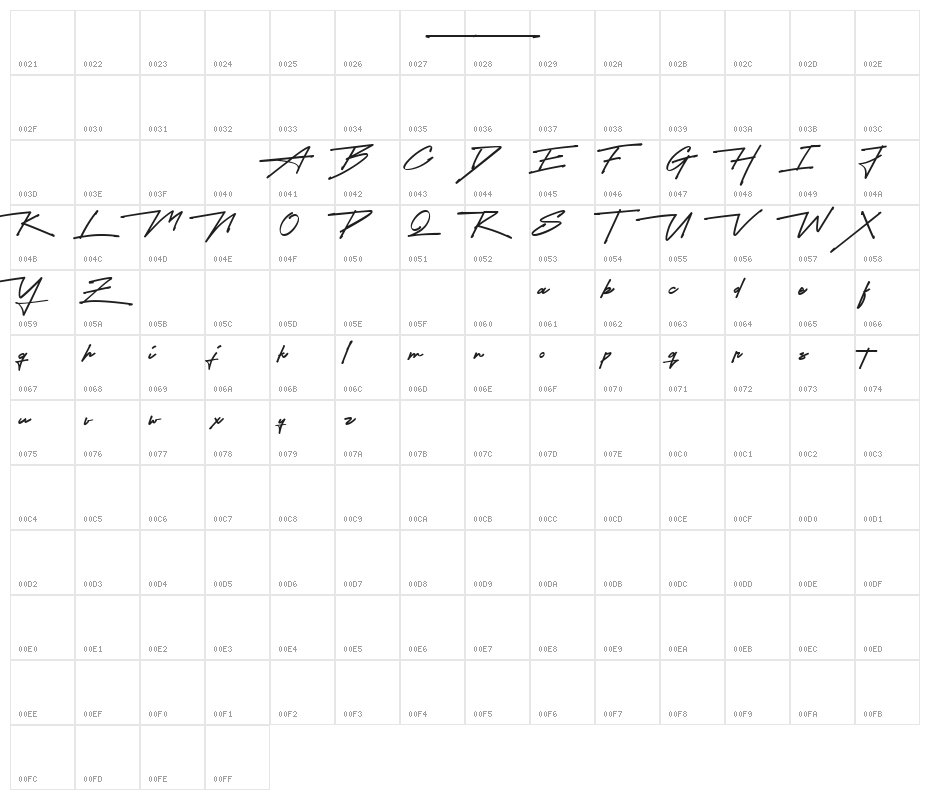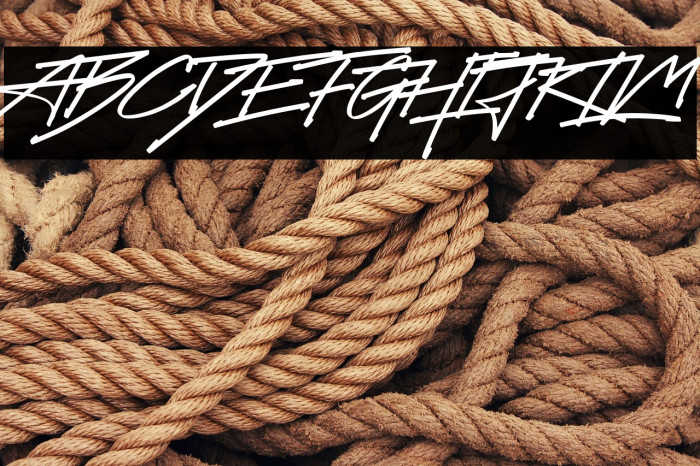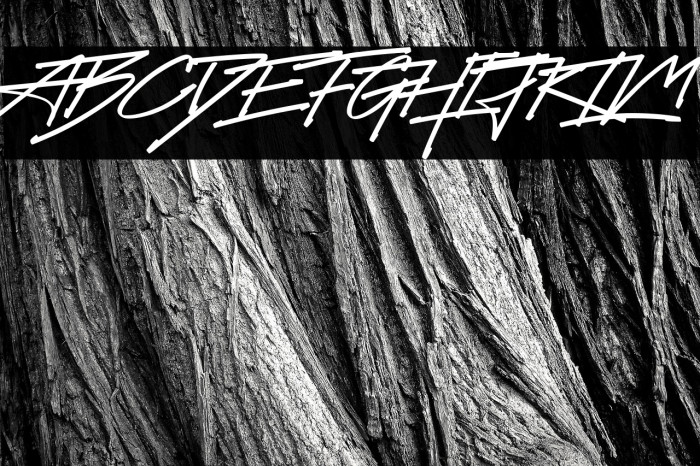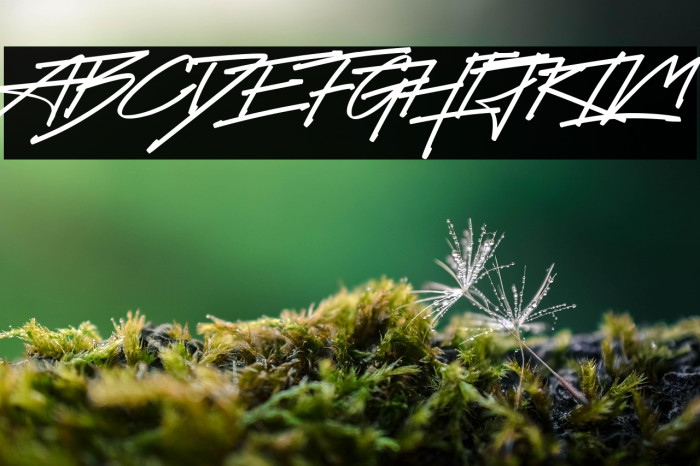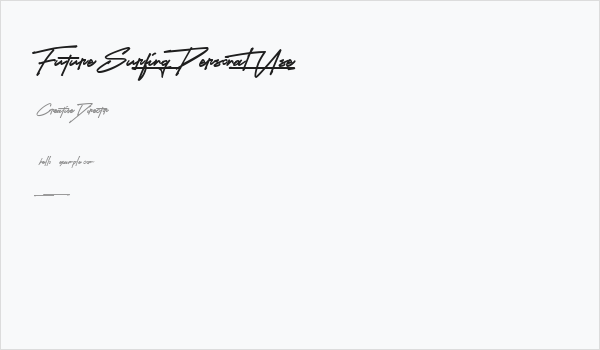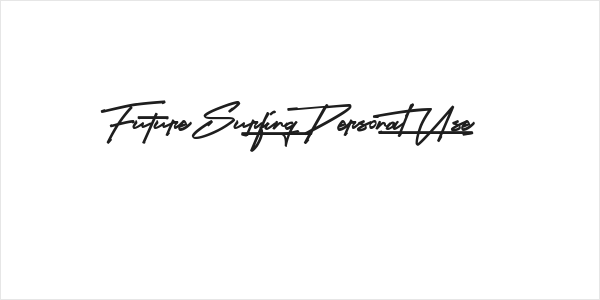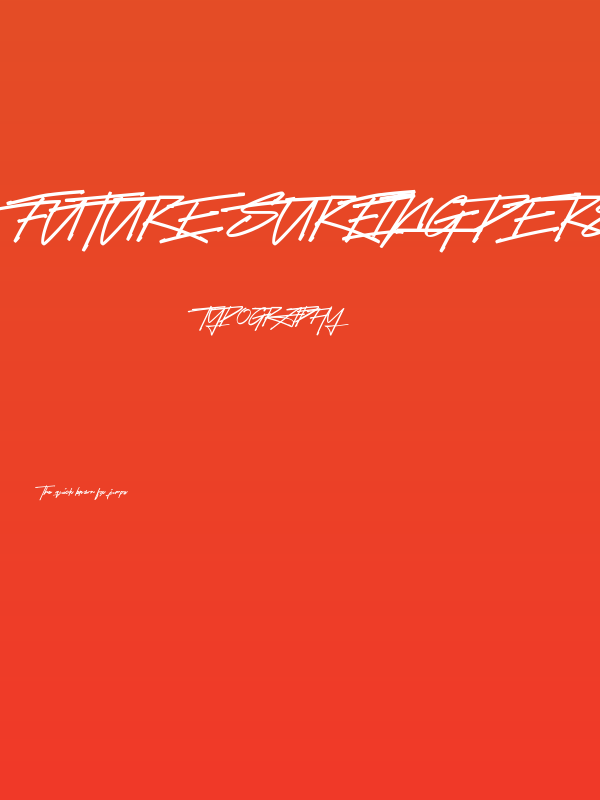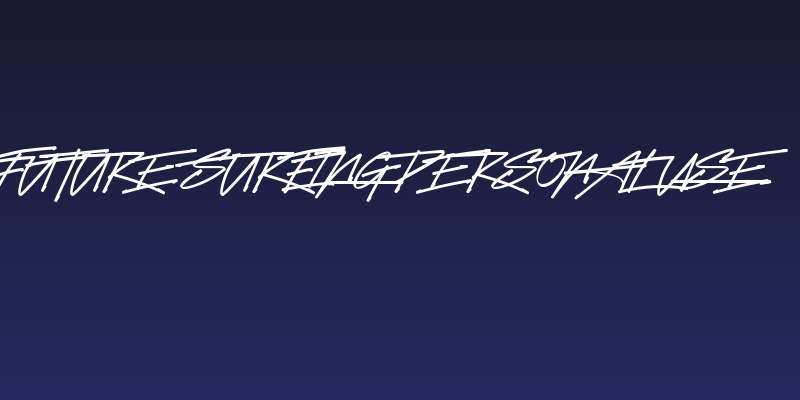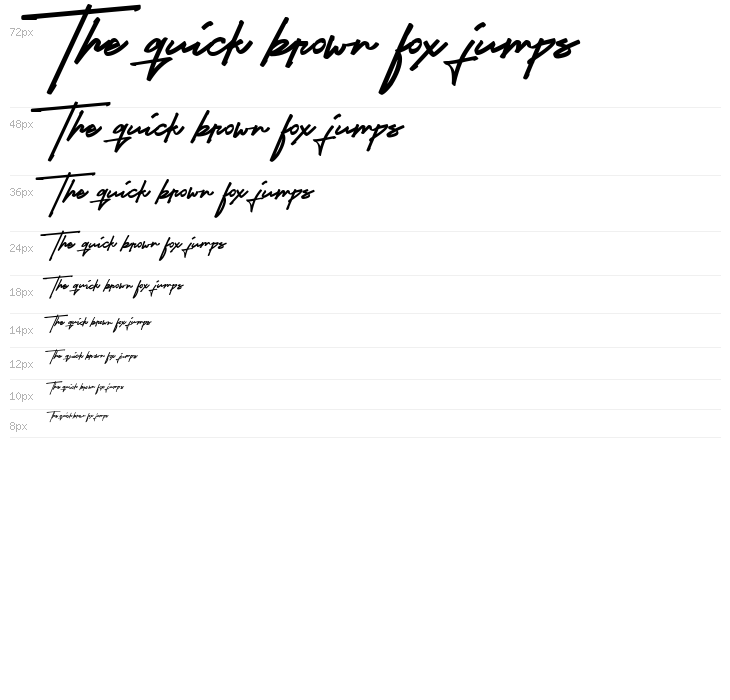
Future Surfing (Personal Use) Font
Future Surfing (Personal Use) Description
A dynamic, handwritten script font with a modern and edgy style, featuring sharp angles and fluid strokes.
| Overall Style | Modern, Artistic |
| Use Case | Logos, Creative projects |
| Proposed Projects | Logos, posters, creative branding, and artistic designs. |